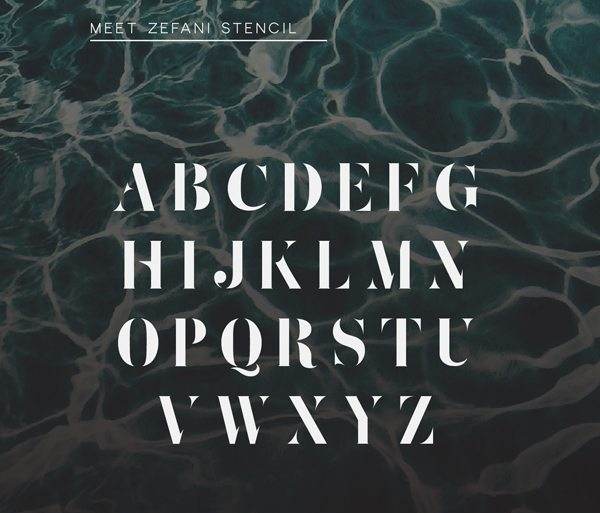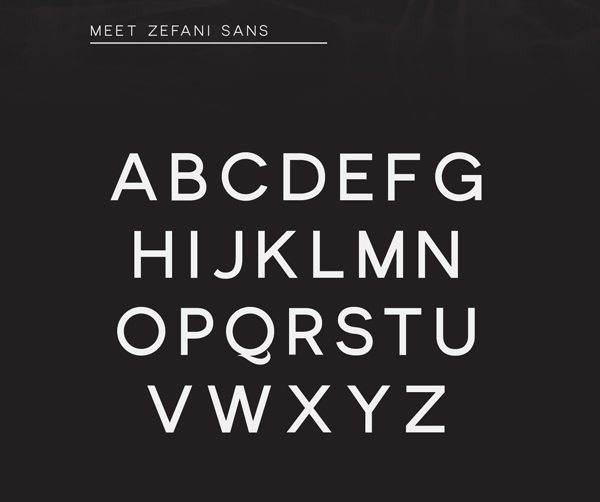
Free Font Of The Day #217 – Zefani
Zefani
Typeface Stencil is a modern didot typeface with strong characters and bold lines, while it’s sister font Zefani Sans is a light san-serif with monoline strokes and three different weights. This is the Zefani family. Designed by Andrew Herndon.